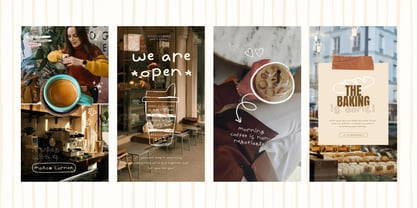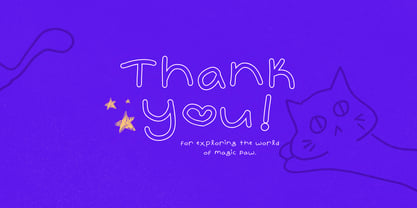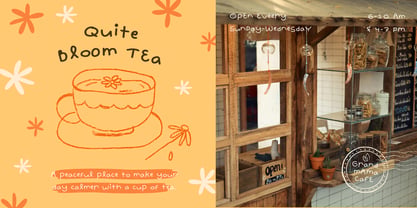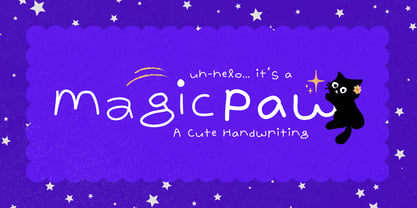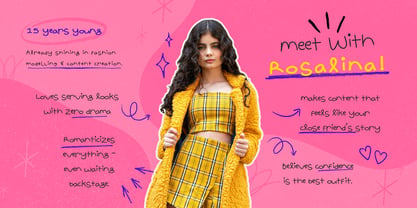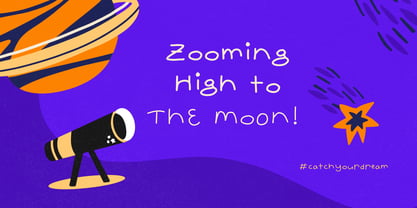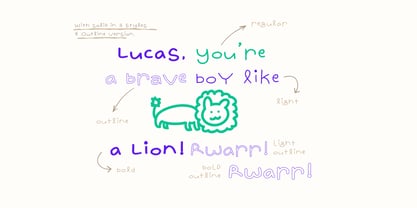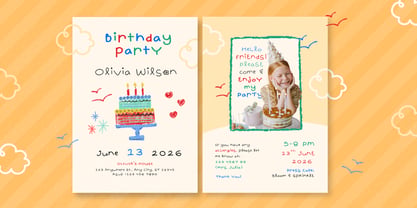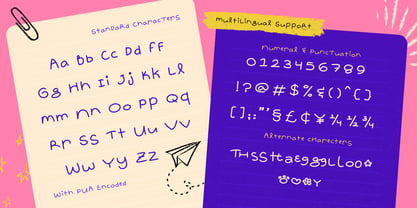
Magic Paw
The Magic Paw Font Family was designed by Amelia Dian Isnaini and published by Sloulyfe Studio. Magic Paw contains 6 styles and family package options. More about this family
Magic Paw feels like a tiny sparkle in the night sky—soft, sweet, and a little bit shy. The letters are rounded, light, and gently wobbly, like handwriting from a cozy notebook . Perfect for cute branding, kids party invites, sticker packs, journaling covers, sweet packaging, storybook titles, and playful social graphics that want a soft glow and a touch of whimsy. Features :Uppercase & lowercase, Numbers and punctuation, Alternates or Ligatures, Multilingual support & PUA encoded Stay catchy everyone!